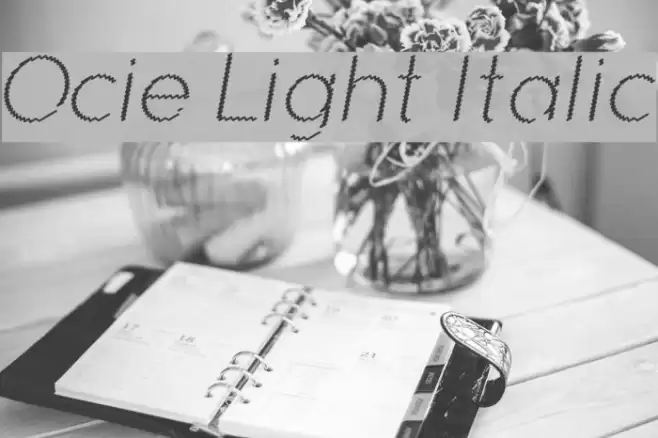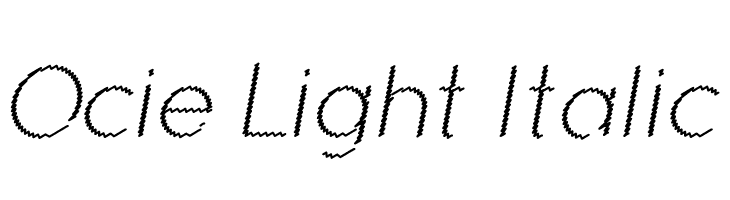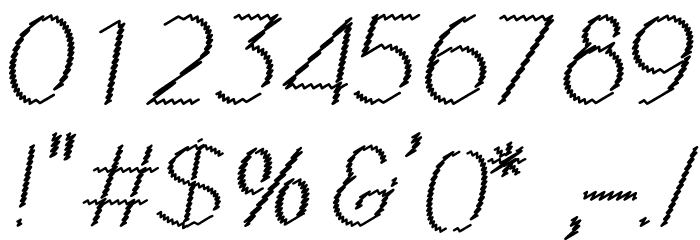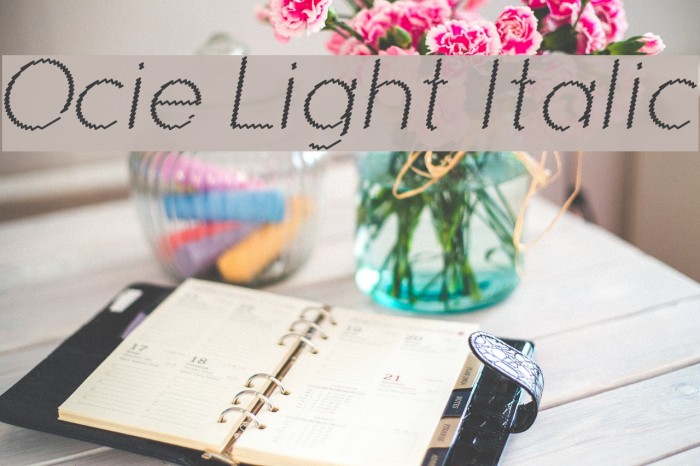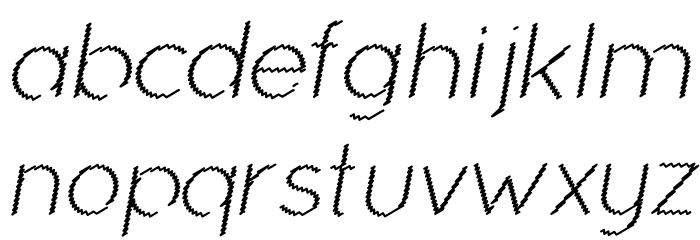
Ocie Light Italic Font
Ocie Light Italic Description
This font features a unique zigzag pattern that gives it a dynamic and energetic appearance. The letters are italicized, adding a sense of movement and fluidity. The strokes are consistent in width, contributing to a cohesive look. The uppercase and lowercase letters maintain a uniform style, with a slight slant that enhances the italic effect. The numbers and special characters follow the same design principles, ensuring a harmonious overall appearance. This font stands out due to its distinctive texture, making it suitable for creative and artistic projects.
A dynamic italic font with a zigzag pattern and consistent stroke width from Distorted Eroded fonts.
- Proposed Projects: Ideal for artistic designs, creative branding, posters, and unique invitations.
- Use Case: Logos, Headlines, Artistic projects